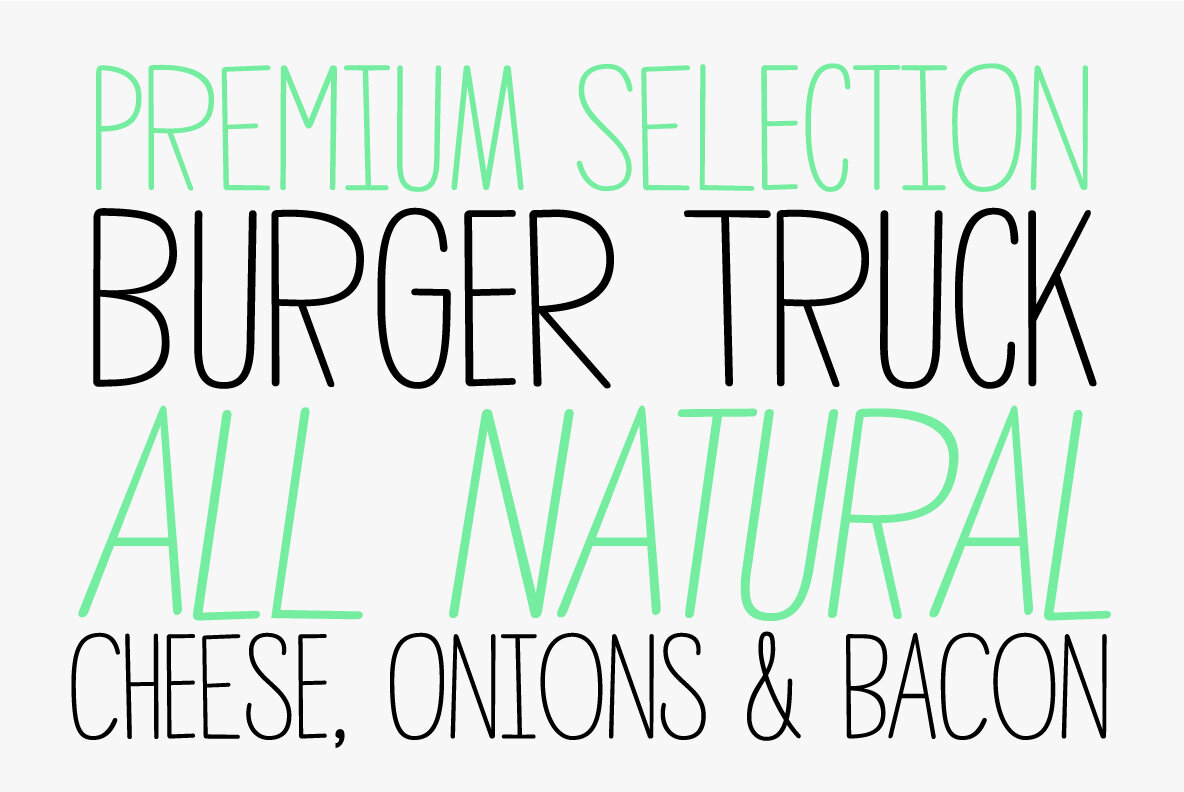
TOMO Mindwalk Font
Mindwalk Regular
Mindwalk Regular Slanted
TOMO Minkwalk is a casual but legible hand-made font. A tall, single weight, all-caps typeface with lots of language support.